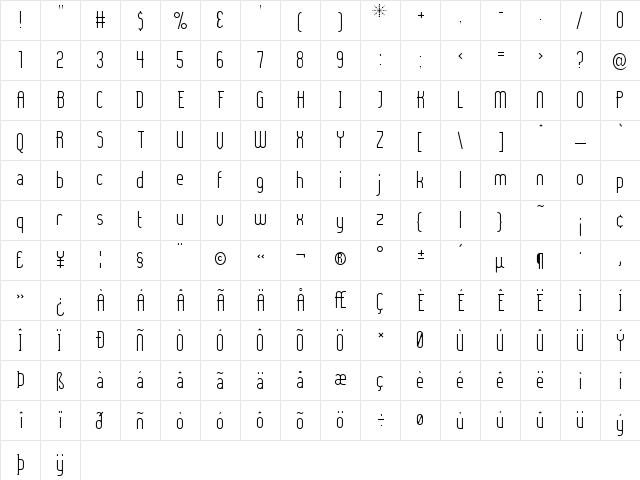
Lady Ice - Light Regular
| Designer | Graham Meade, CybaPee & Apostrophe |
Design Context for Lady Ice - Light Typeface
Lady Ice - Light is a composed and adaptable typeface that performs quietly and consistently across a wide range of design contexts. The delicate stroke weight brings airiness and refinement to layouts.